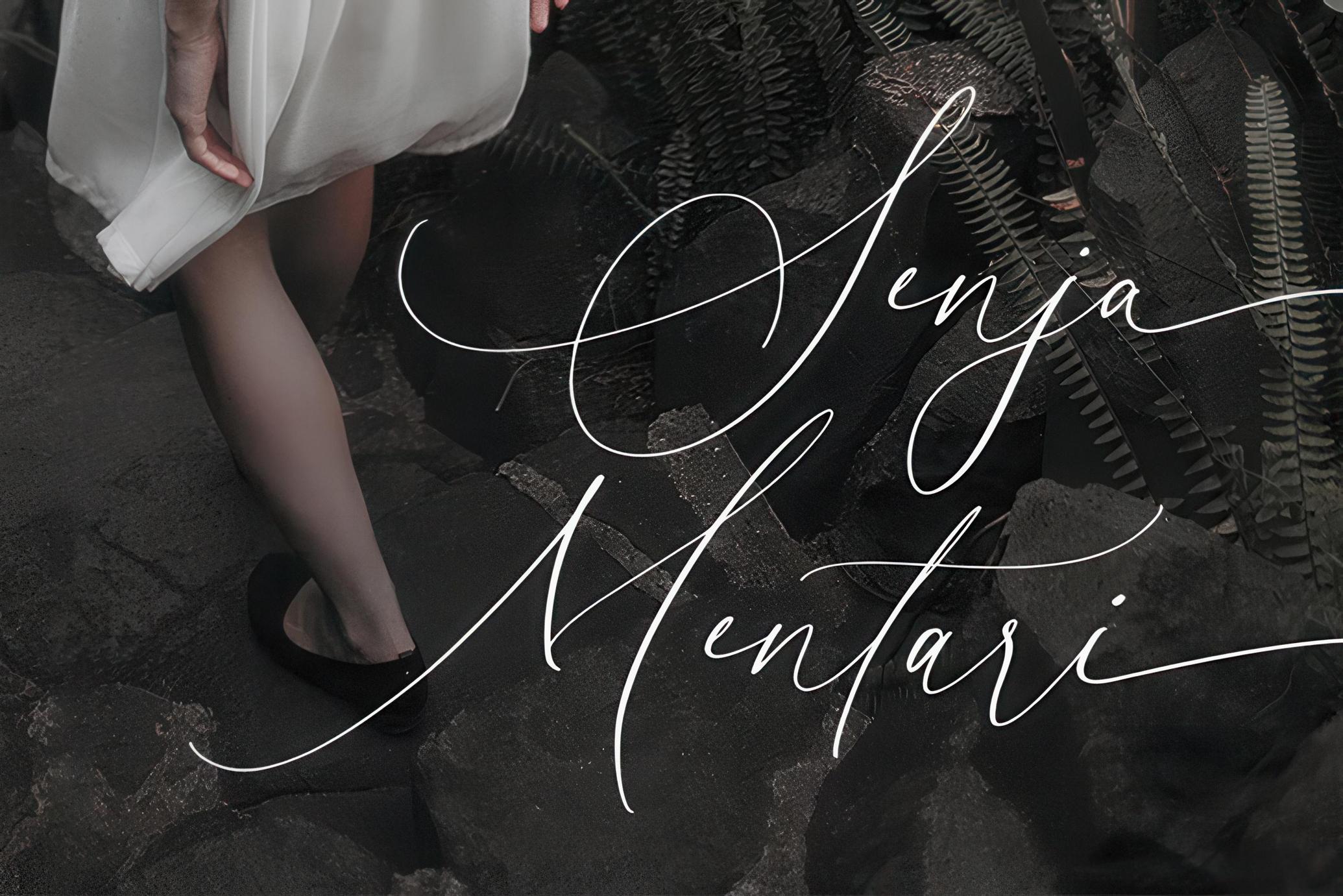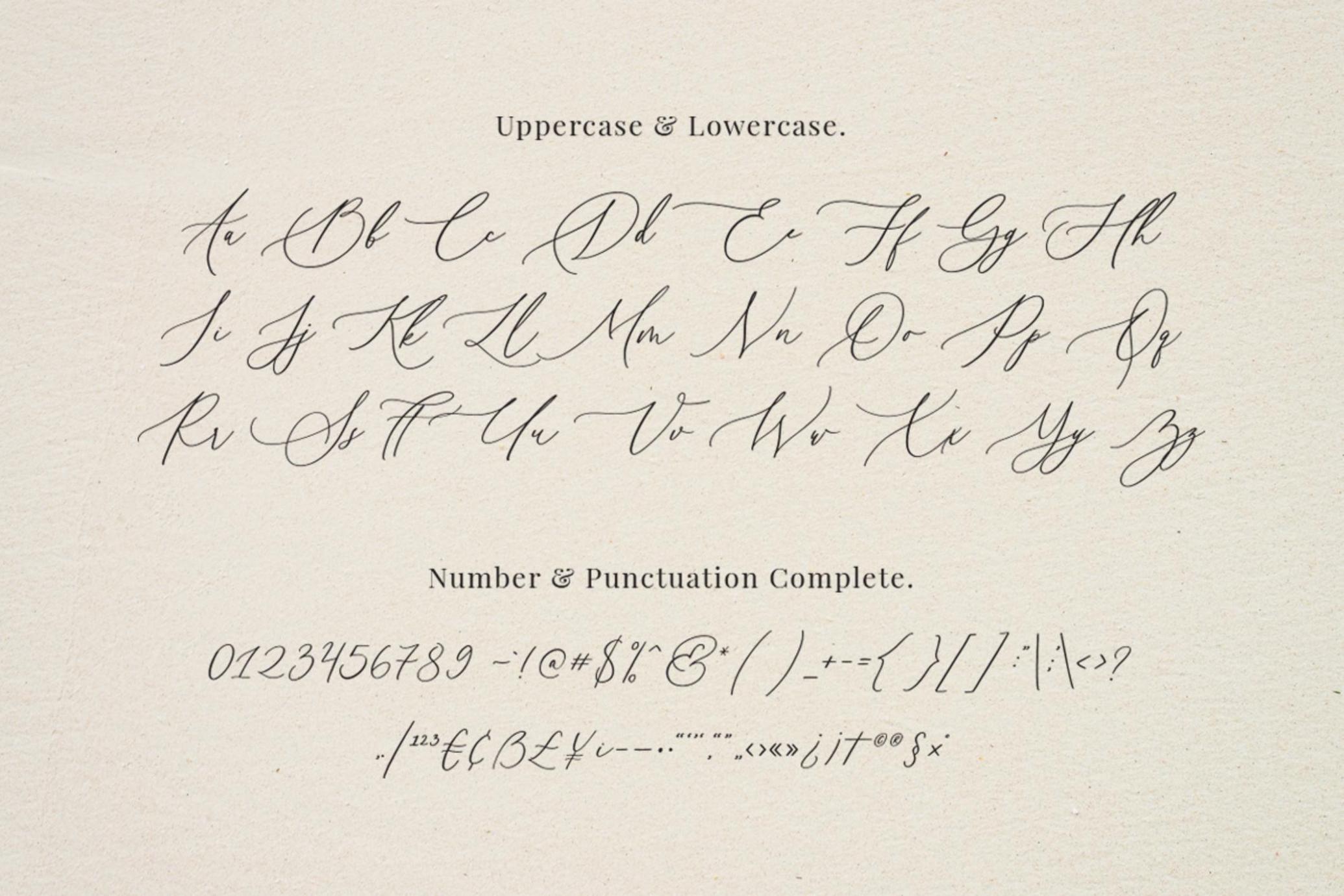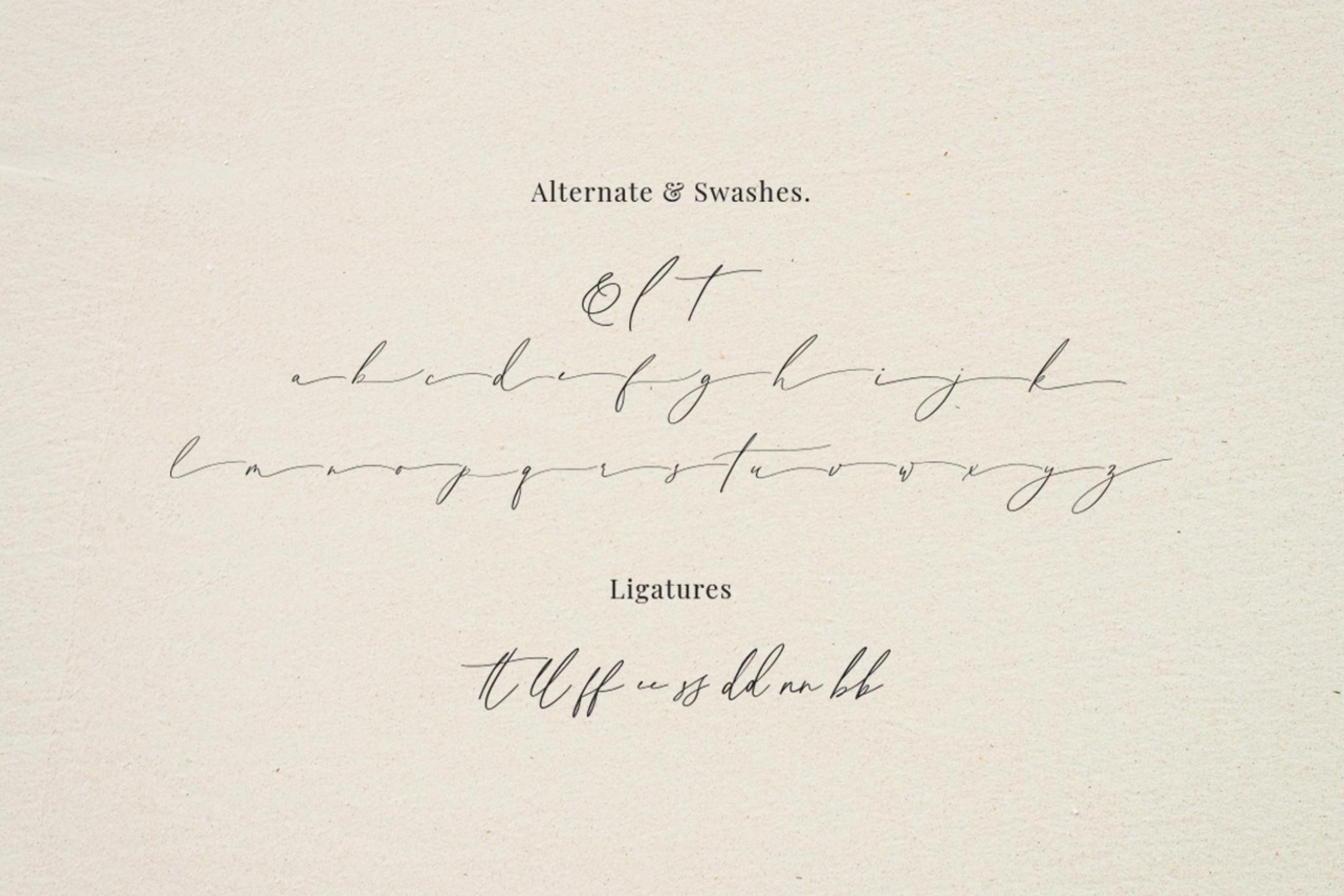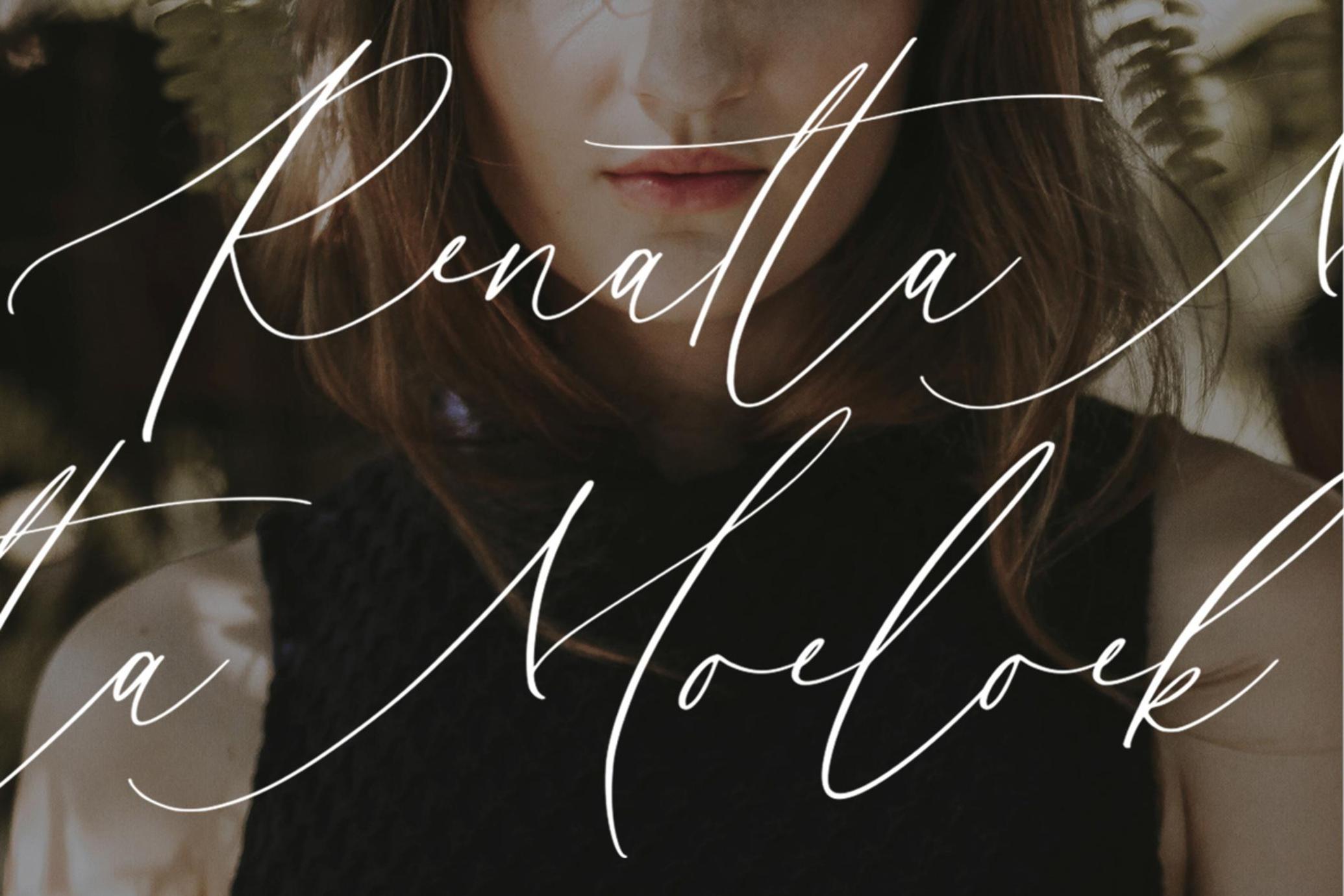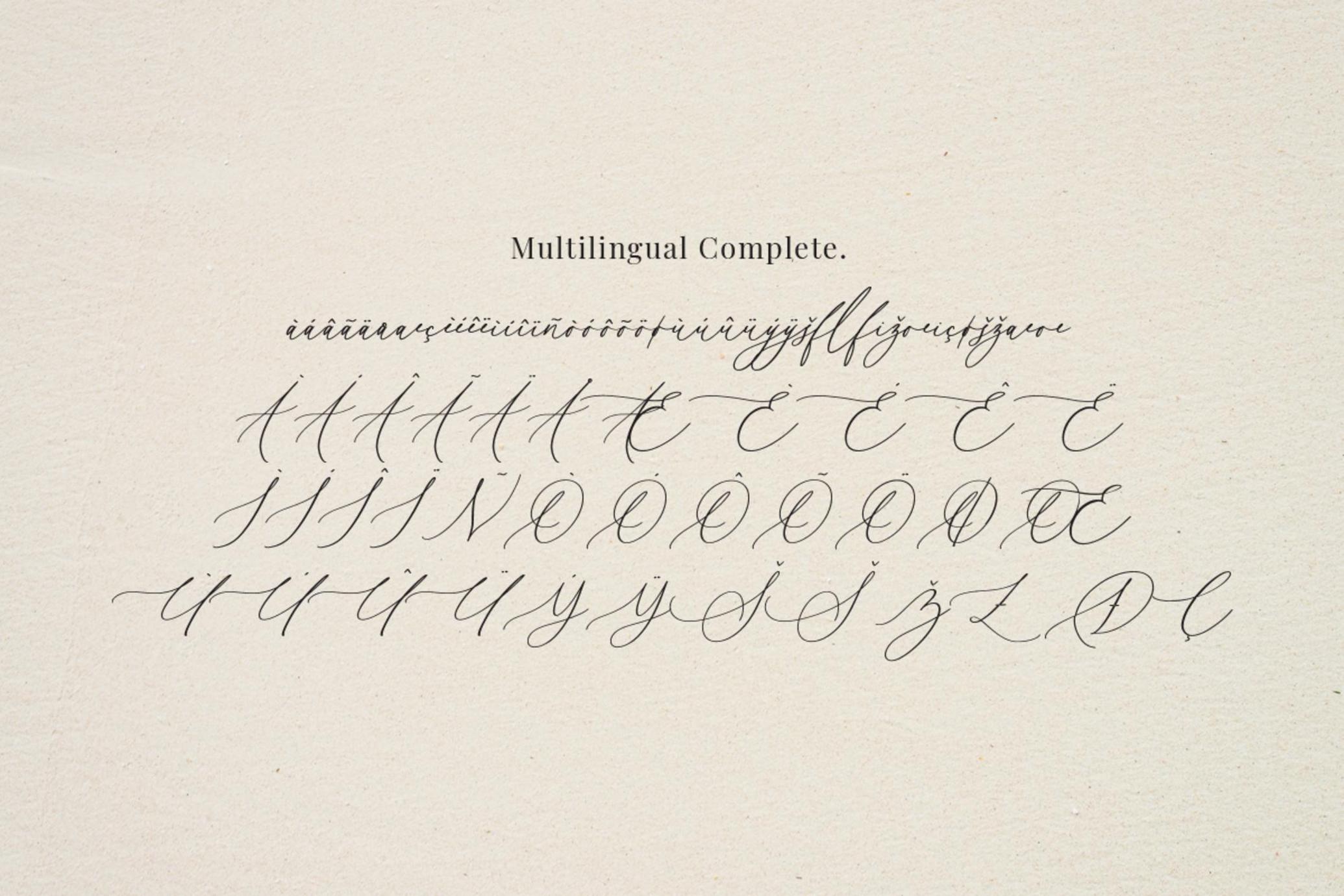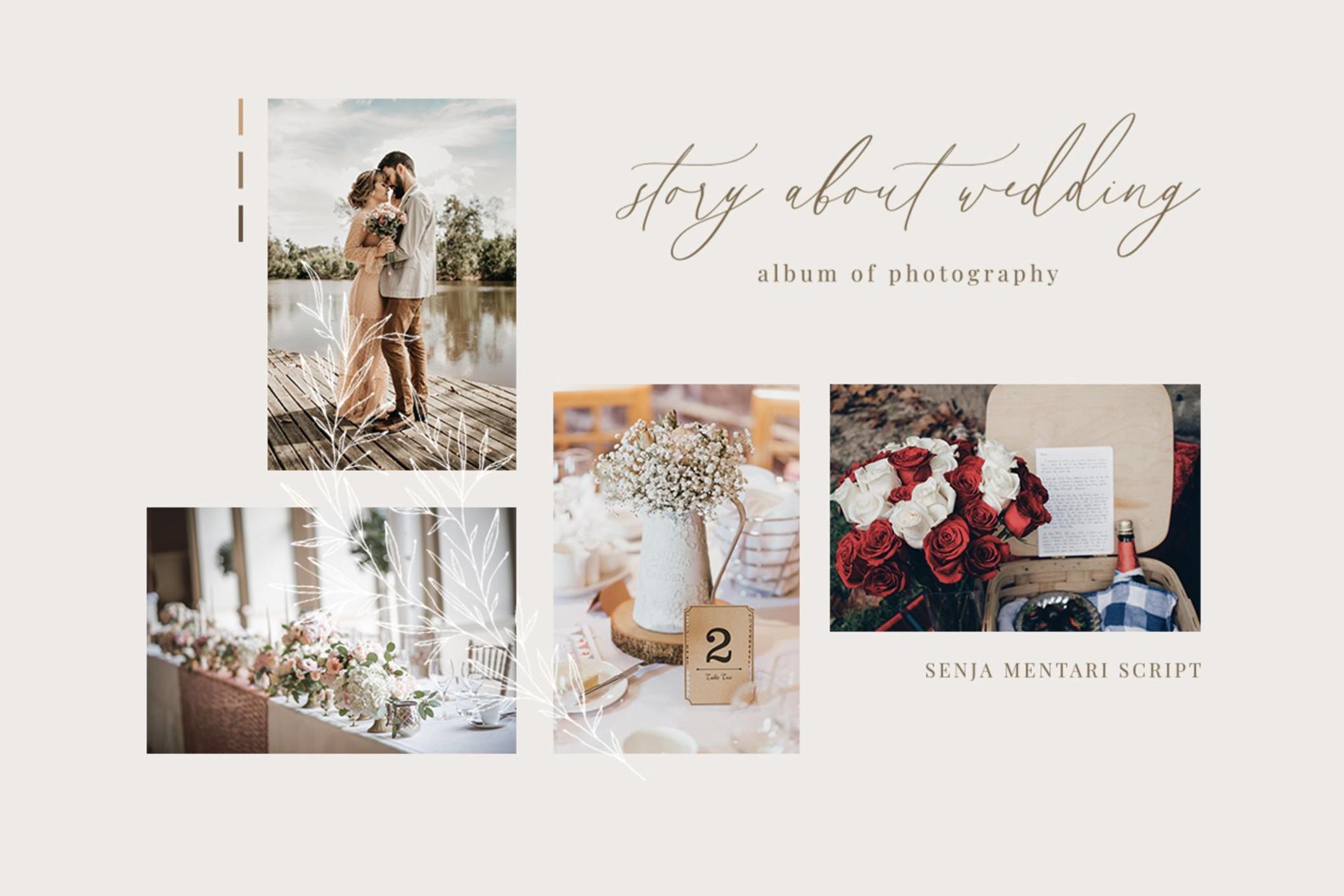
Senja Mentari - Modern Script
Senja Mentari is elegant modern calligraphy font inspired by delicate inky hand lettering, gorgeous wedding calligraphy and trending minimal branding designs.
This beautiful font pair is for those who are needing of elegance and stylish for their designs and particularly well suited for wedding invitations, cards and feminine branding.
• More than 100 beautiful swashes in this font
Multilingual Support :
à á â ã ä å æ ç è é ê ë ì í î ï ñ ò ó ô õ ö ø ù ú û ü ý ÿ š fl fi ž œ ı ç ø š ž æ œ À Á Â Ã Ä Å Æ È É Ê Ë Ì Í Î Ï Ñ Ò Ó Ô Õ Ö Ø Œ Ù Ú Û Ü Ý Ÿ Š Š ŽŁ Ð Ç